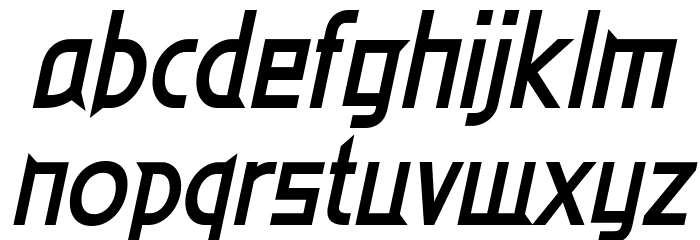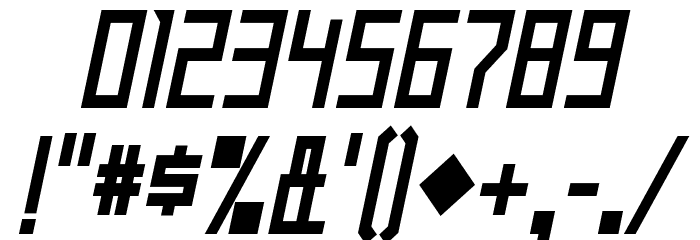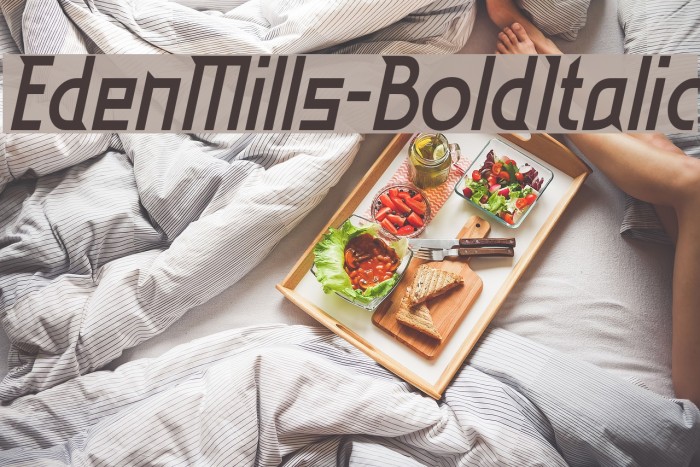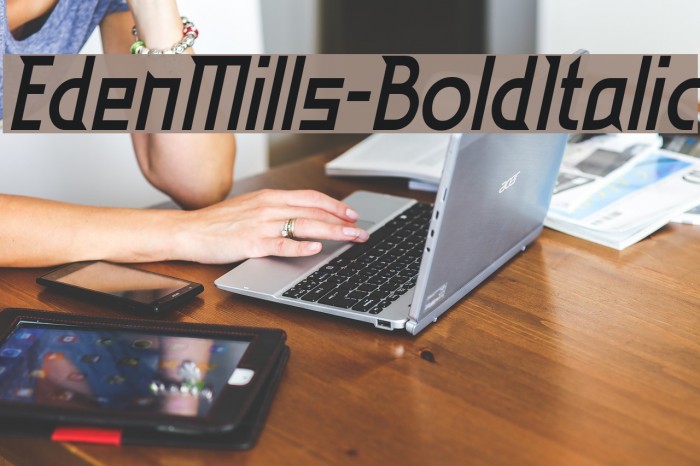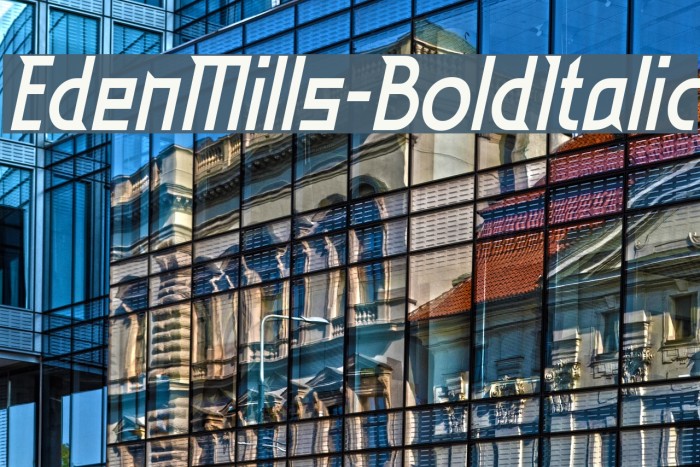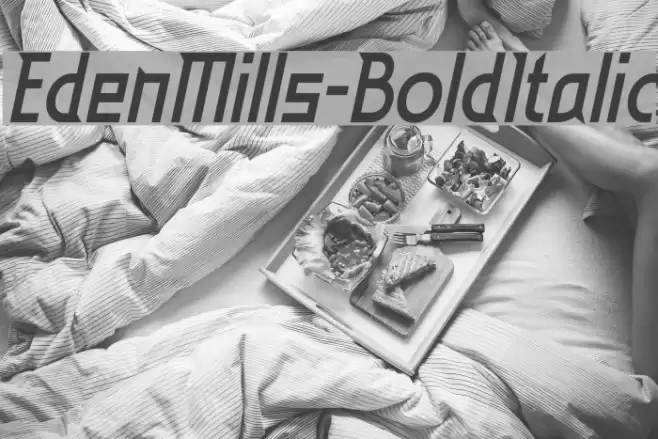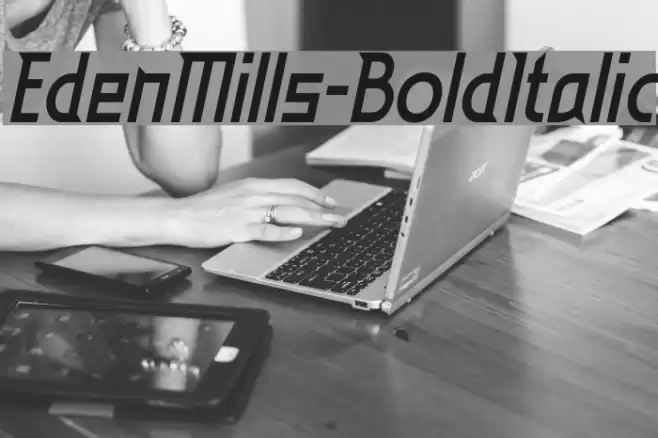
EdenMills-BoldItalic Font
This font features a bold and italicized style with a modern and dynamic appearance. The characters are slightly condensed, giving it a sleek and streamlined look. The strokes are consistent in thickness, providing a medium contrast that enhances readability while maintaining a distinct personality. The angular edges and sharp lines contribute to its contemporary feel, making it suitable for various design applications. The font's structure is well-balanced, with a slight forward slant that adds a sense of motion and energy. It includes a full set of uppercase and lowercase letters, numerals, and a variety of special characters, ensuring versatility in usage.
A bold, italicized font with a modern, dynamic style and medium contrast.
- Proposed Projects: Ideal for branding, advertising, headlines, and modern web design projects.
- Use Case: Headlines, Logos, Branding